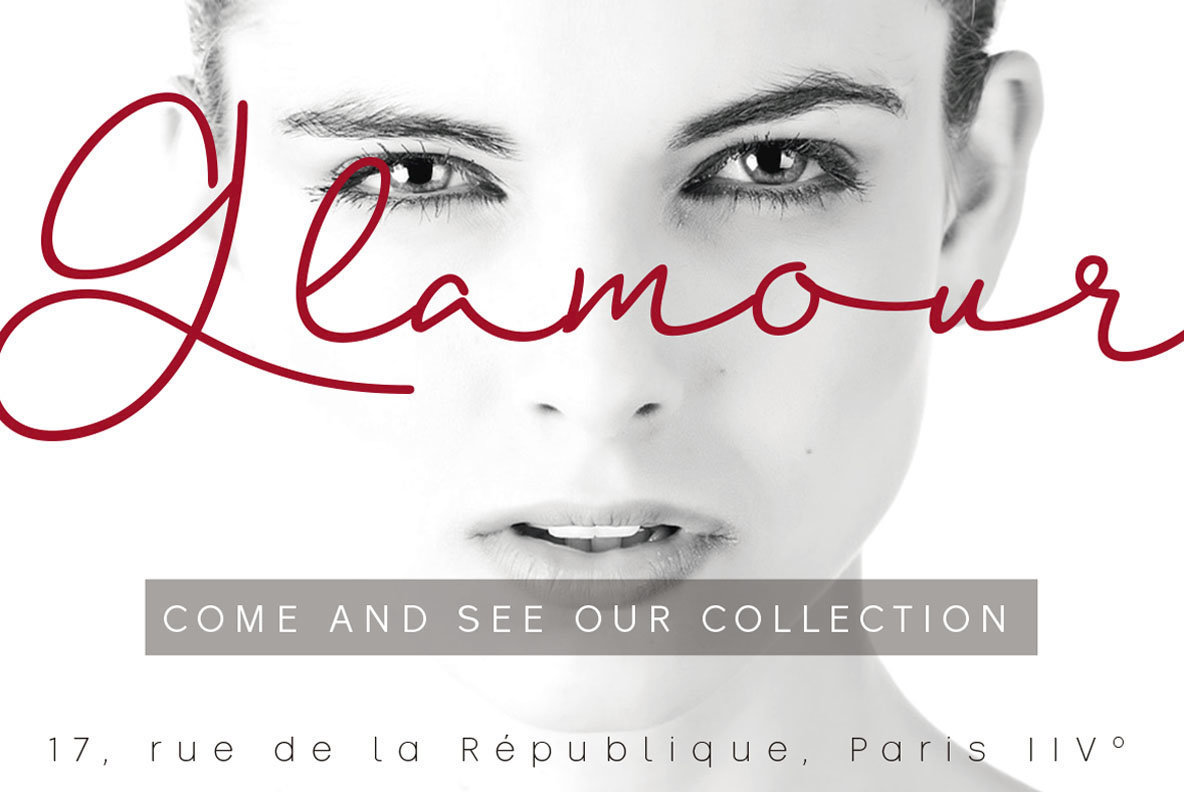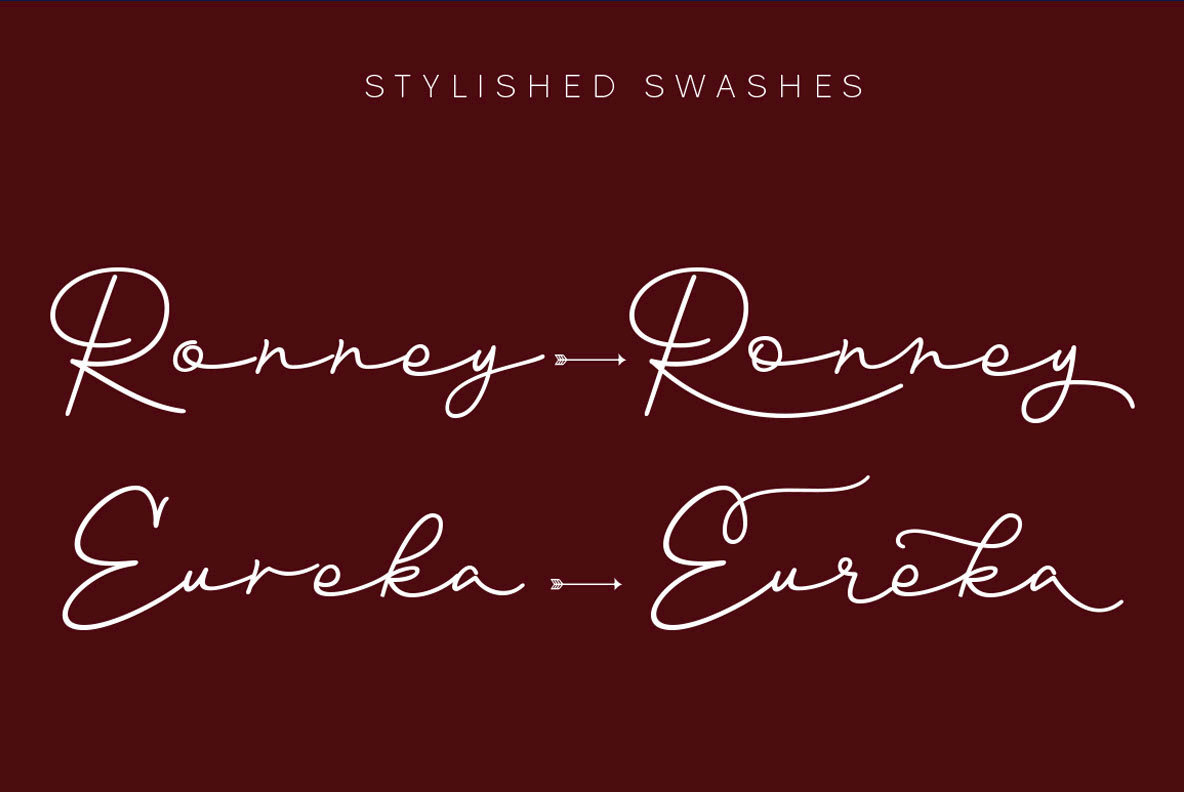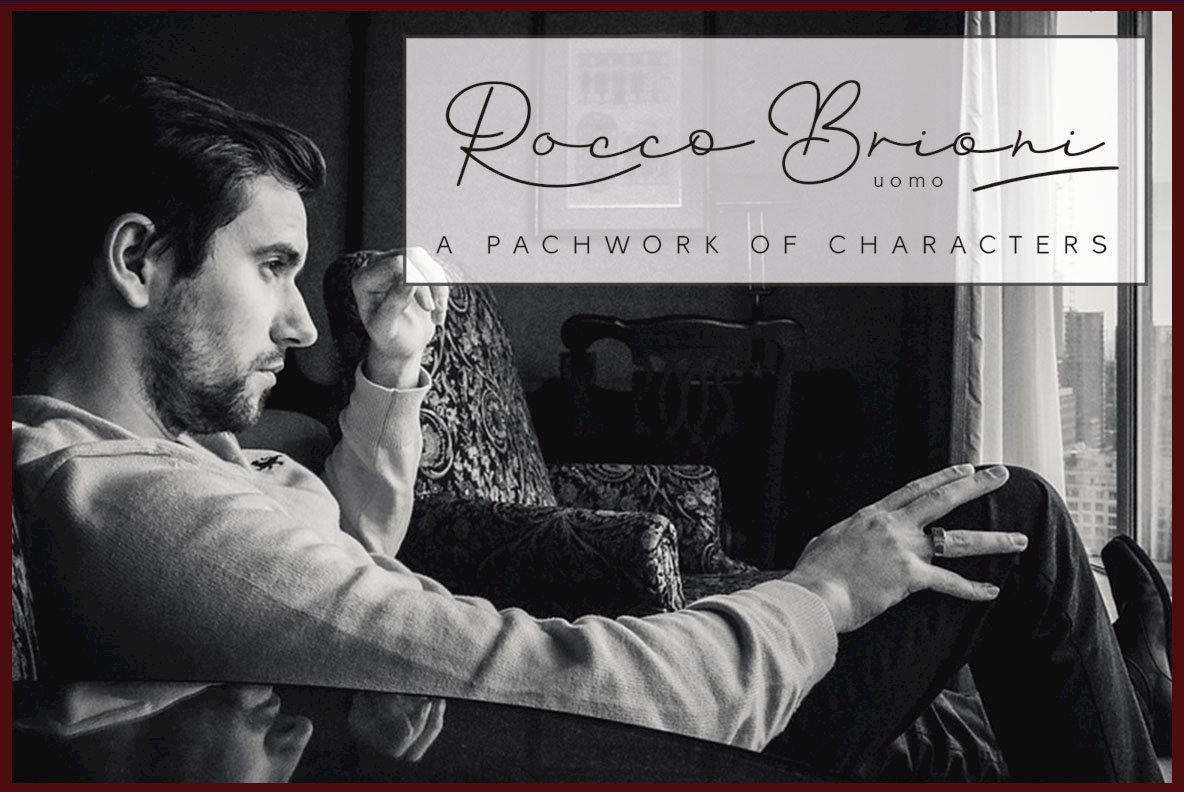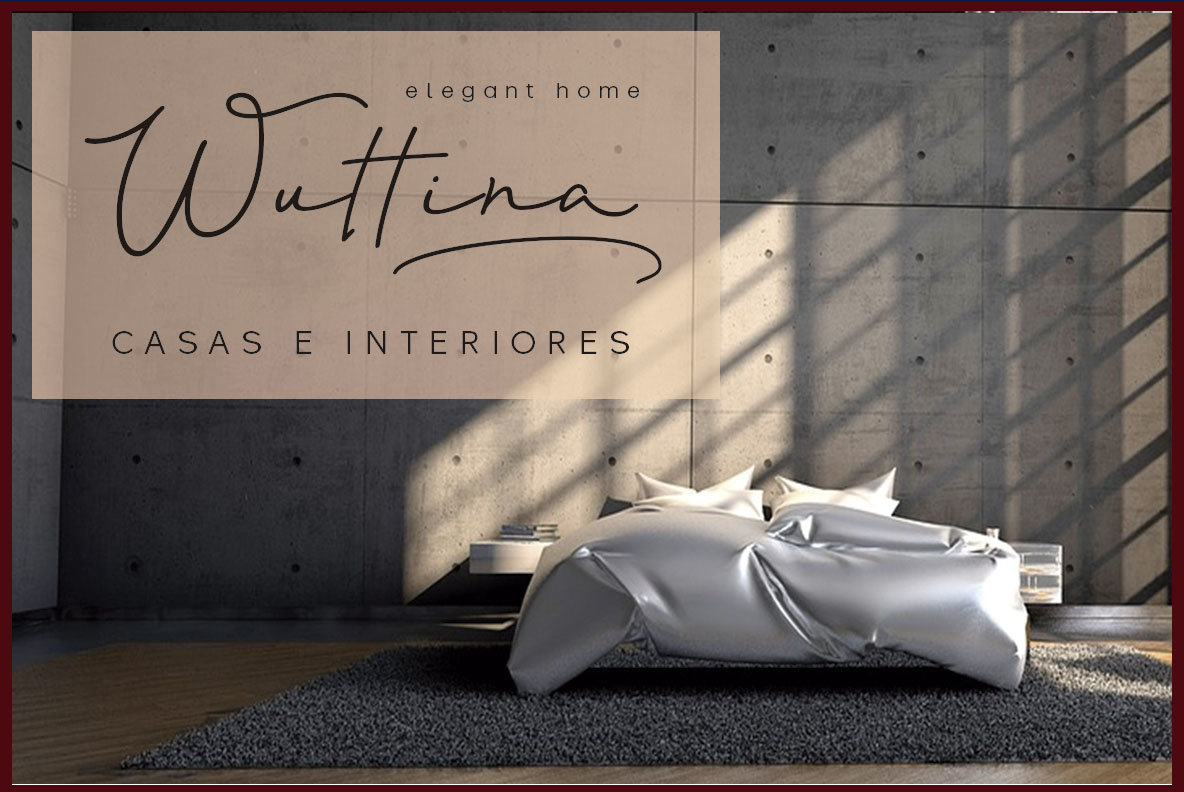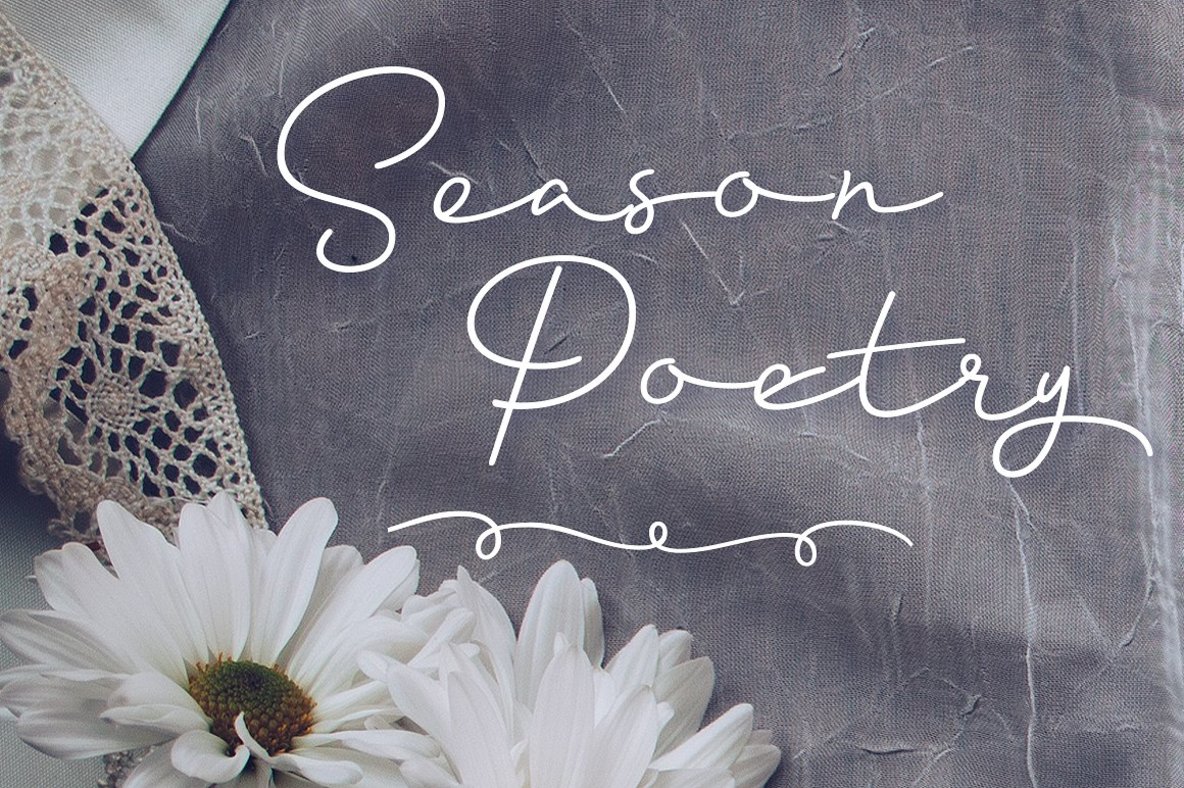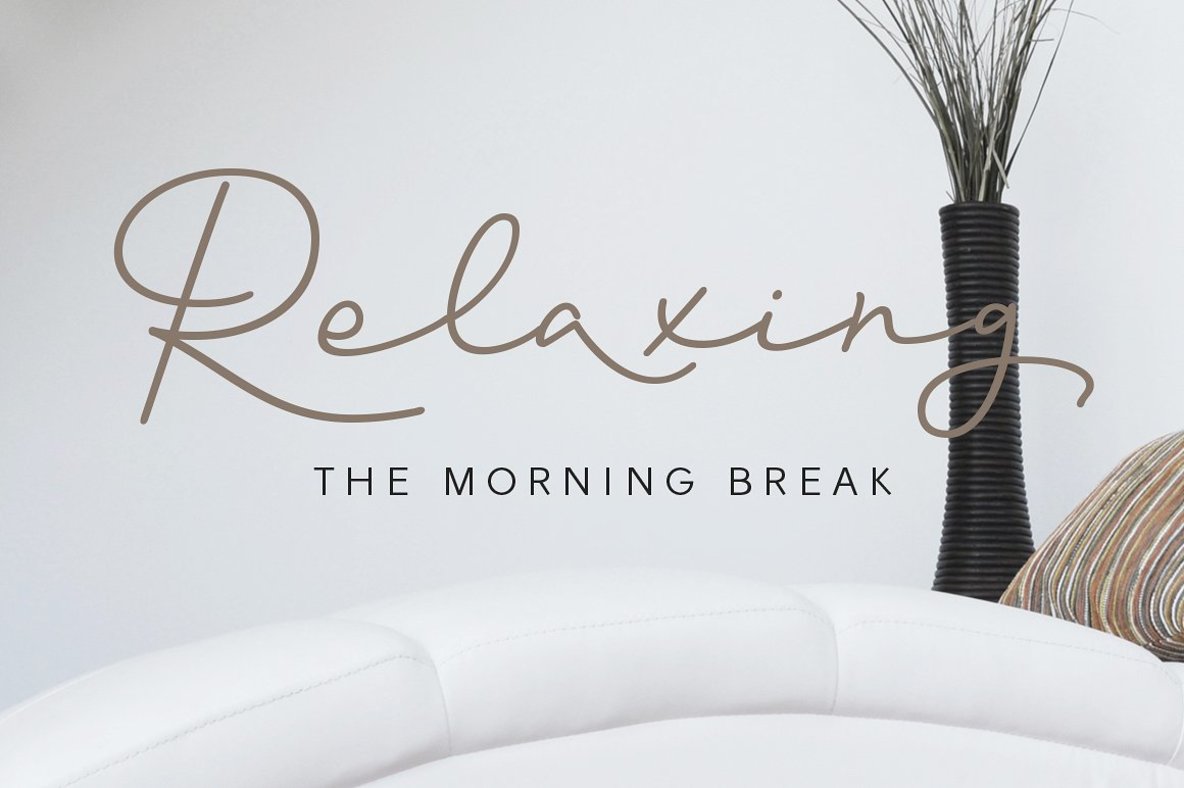
Clauques Font
Clauques includes four fonts and, in addition, a very useful extra elements.
Clauques Script and Clauques Script Light are elegant and youthful fonts with many stylistic variations, swashes and ligatures. Clauques Sans and Clauques Sans Light add a little seriousness. Both are designed to be combined but they also work great on their own. Clauques Ornaments has a lot of beautiful ornaments that work very well with the two styles of fonts. With all this, Clauques Family Font will allow you to create elegant works.
Designer: Carine de Wandeleer